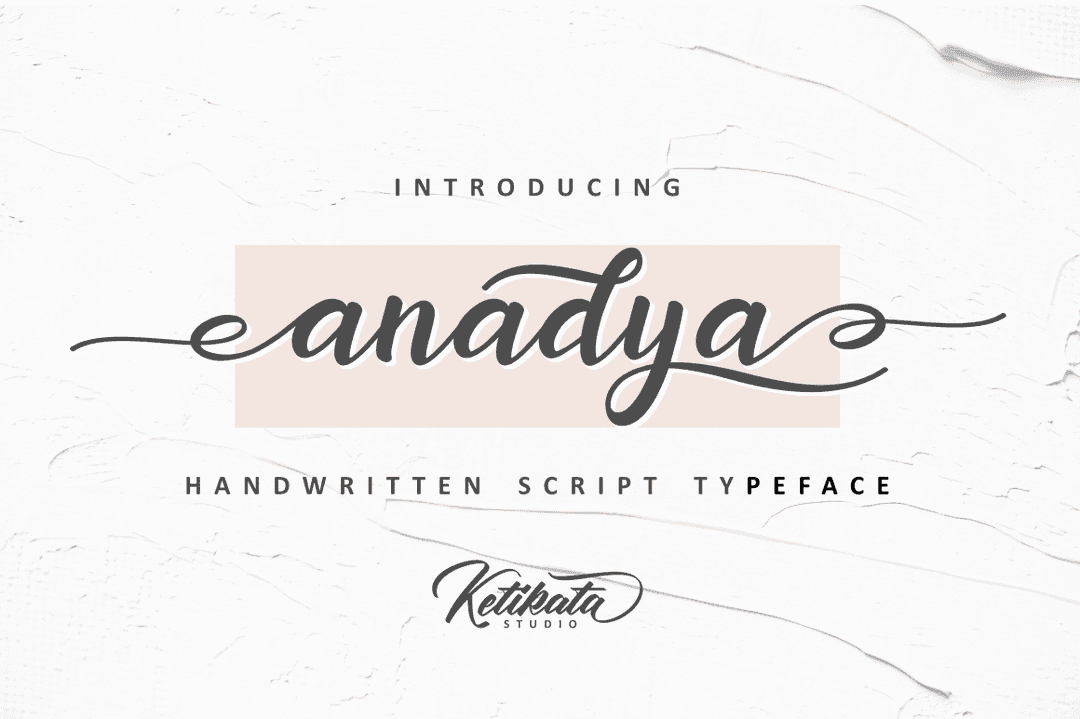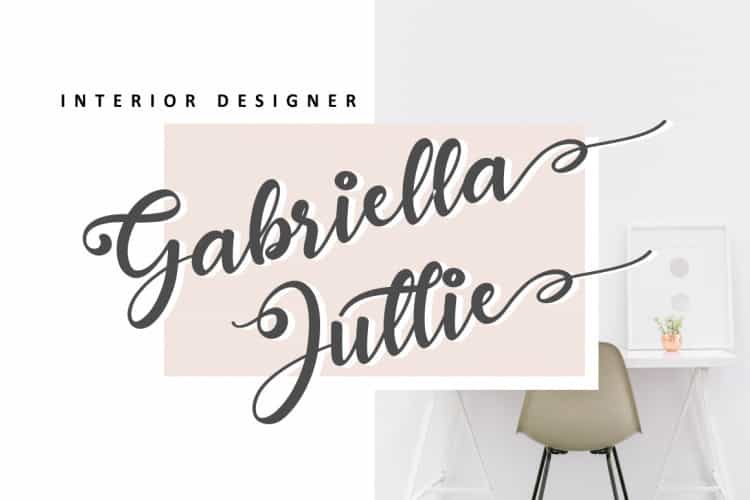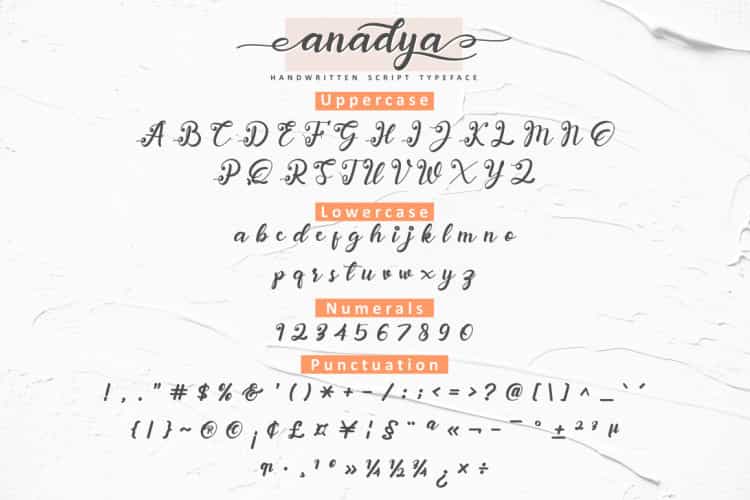
Discover Anadya Handwritten Font, part of the Calligraphy Handwritten collection—a versatile and unique font perfect for adding a personal touch to your projects. Download it for free and enjoy crafting designs with style, from invitations to social media posts. This font is available exclusively for personal use, giving you the freedom to create without limits. Unlock your creativity with Anadya Handwritten Font today!
Introducing Anadya Font. It is the creation and shared by Ketikata Studio. Anadya Handwritten Script Font is a handwriting script font of modern style. carefully designed with Brush lettering. which has a lot of alternative and swashes that can be used to make your own custom design.